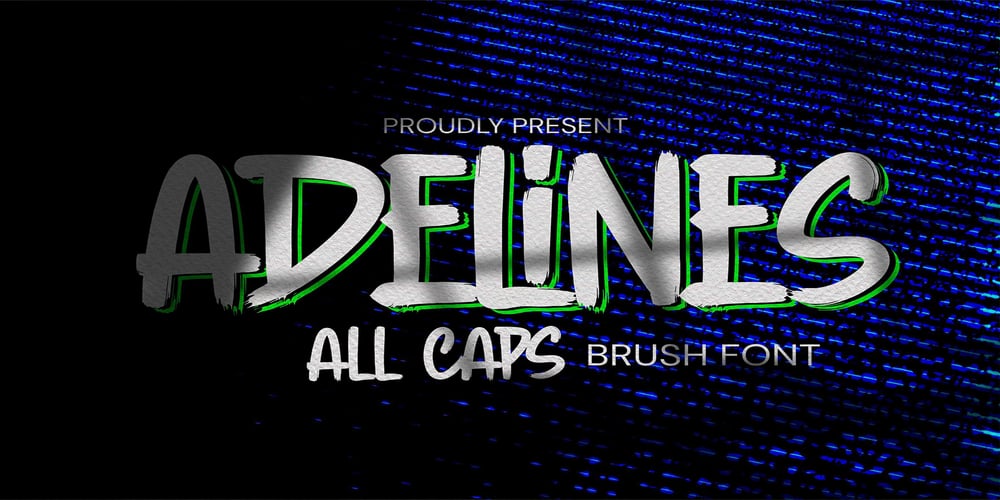
Adelines
Adelines font
Adelines Font Family was designed by Abdul Malik Wisnu, Anang Fibriyanto and published by Gassstype. Adelines contains 1 styles and family package options. New font Adelinesis a handwritten brush that is 2 Style and written casually and quickly. Letters are made with brushes on Procreate. That is why Adelines has charming, authentic and relaxed characteristic more natural look to your text with a more natural look to your text.